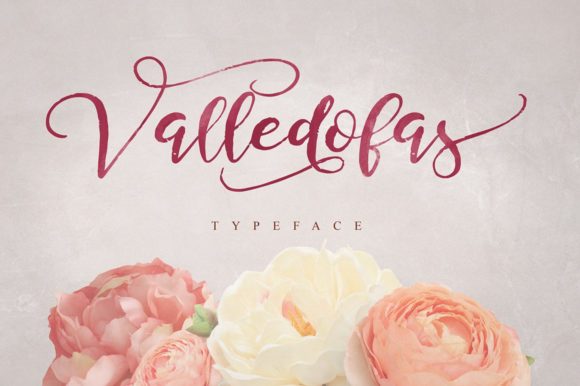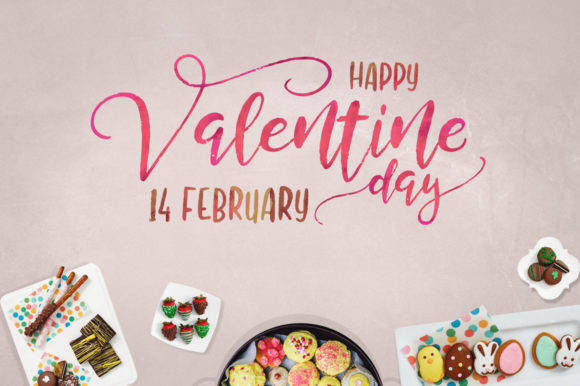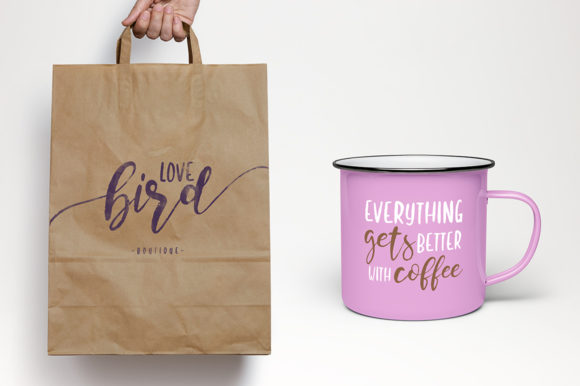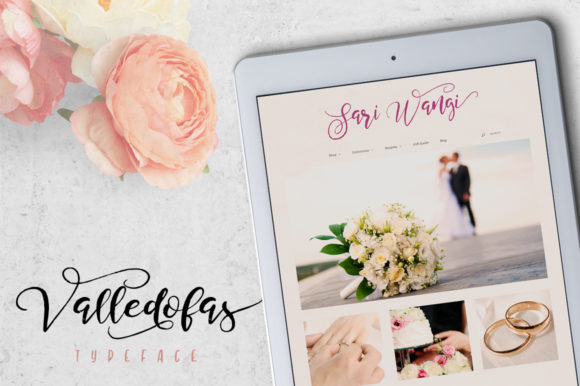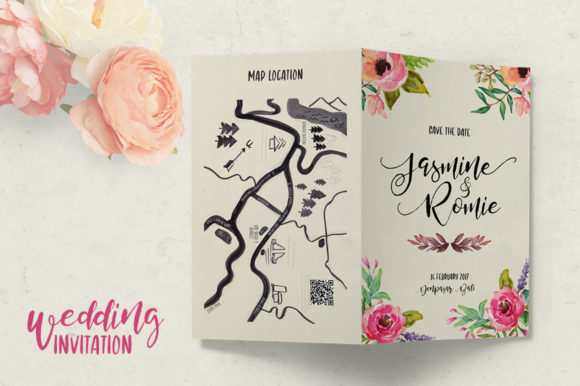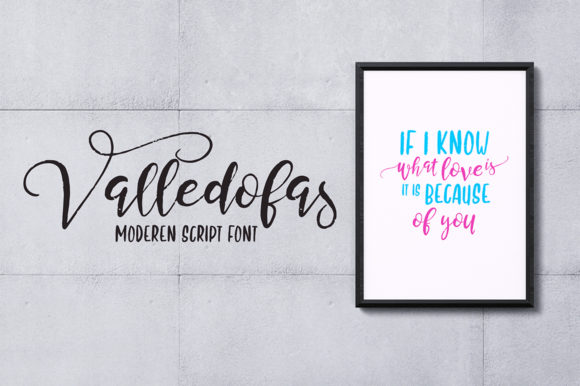
Valledofas Font
About Valledofas Font
Valledofas is a sweet and charming handwritten font with a cool twist. It’s the perfect font for adding an authentic spark to any creative idea.